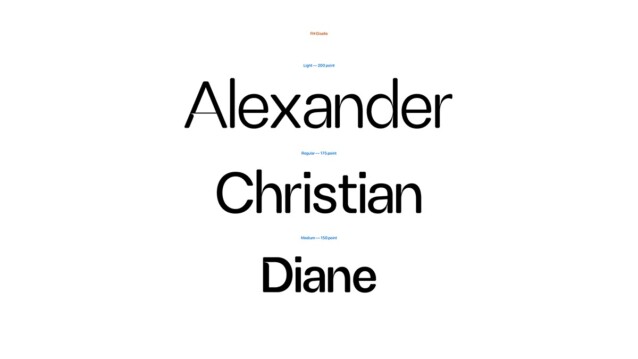
FH Giselle Font Family
FH Giselle Font is a modern sans-serif typeface designed to look great when used for both headlines and large chunks of texts. Although being in a classical sans-serif structure, we can see that it is finalized with 45 degree angles when we descend to the details of the letters. Another point to support this is the characterized touches of the ink spaces.